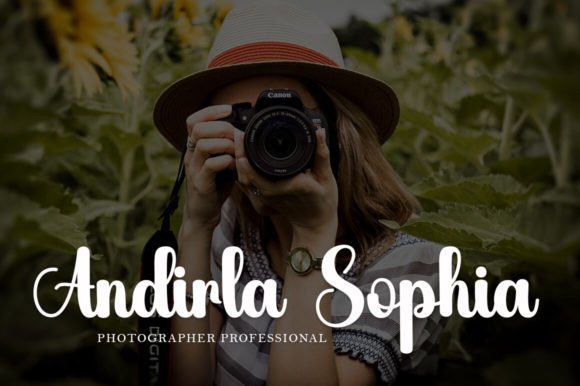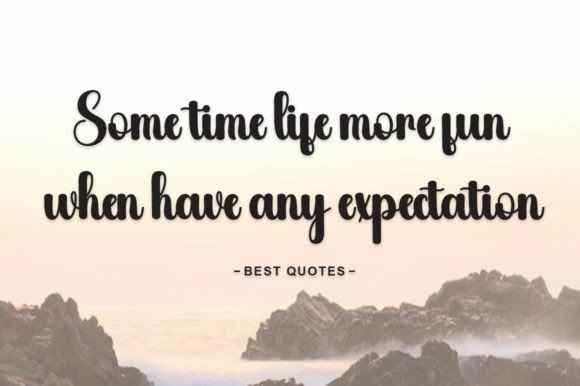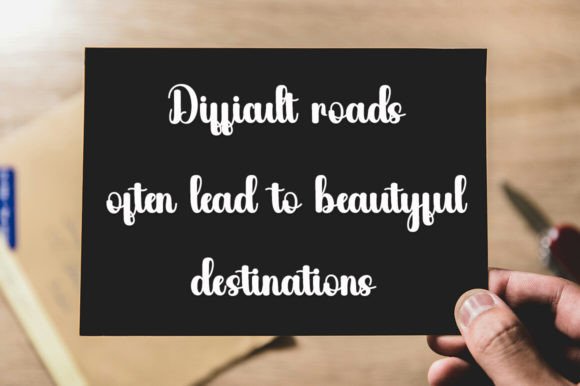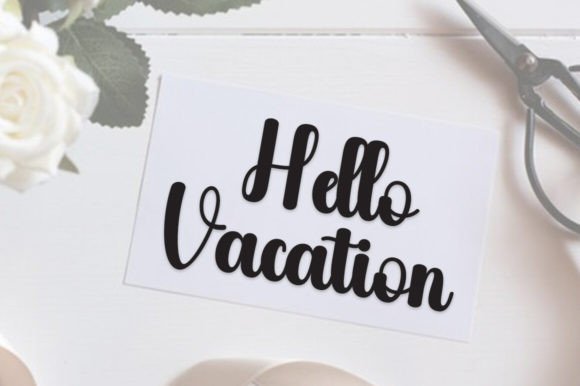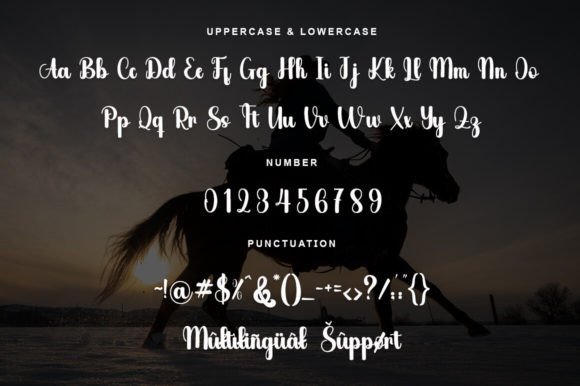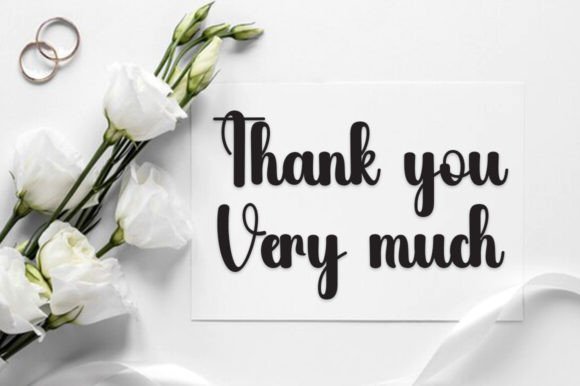
Discover the Charming Angelin Font: Elevate Your Designs with Freshness and Elegance
Are you on the hunt for a font that embodies the perfect blend of casual elegance and freshness? Look no further than the Angelin font. This charming handwritten font is designed to bring a sense of laid-back sophistication to your design projects, making it an ideal choice for creatives and designers alike.
The Characteristics of Angelin Font
Angelin font boasts fluid strokes and organic lines that work in harmony to create a visually appealing and approachable aesthetic. Its unique charm lies in its ability to evoke a sense of warmth and personality, making it perfect for designs that require a human touch. Whether you’re working on branding, invitations, social media graphics, or any other project that requires a distinctive look, Angelin is sure to impress.
One of the standout features of the Angelin font is its versatility. Its adaptability makes it suitable for a wide range of design applications, including:
- Branding: Use Angelin to create a memorable brand identity that resonates with your target audience. Its unique charm can help your brand stand out in a crowded market.
- Invitations: Add a touch of elegance and sophistication to your invitations, whether it’s for a wedding, birthday party, or corporate event.
- Social Media Graphics: Elevate your social media presence with eye-catching graphics that showcase the Angelin font’s playful yet refined aesthetic.
Why Choose Angelin Font?
With so many fonts available, what sets Angelin apart? Here are a few compelling reasons to choose Angelin for your next design project:
- Unique Personality: Angelin font has a distinct personality that can help your designs connect with your audience on a more personal level.
- Ease of Use: Designed with readability in mind, Angelin is easy to use in various contexts, from digital media to print.
- Customization: The font’s flexibility allows for creative freedom, enabling you to experiment with different styles and effects to match your design vision.
Tips for Using Angelin Font Effectively
To make the most of the Angelin font, consider the following tips:
- Pair with Complementary Fonts: Combine Angelin with clean, sans-serif fonts to create visual interest and hierarchy in your designs.
- Experiment with Colors: Don’t be afraid to play with different color schemes to find the perfect match for your design and brand identity.
- Pay Attention to Spacing: Ensure that your text is easy to read by paying attention to letter spacing and line height.
The Angelin font is a beautiful addition to any designer’s toolkit, offering a unique blend of freshness, elegance, and personality. Its versatility and charm make it an excellent choice for a wide range of projects, from branding and invitations to social media graphics. By incorporating Angelin into your designs, you can create visually appealing and engaging content that resonates with your audience.